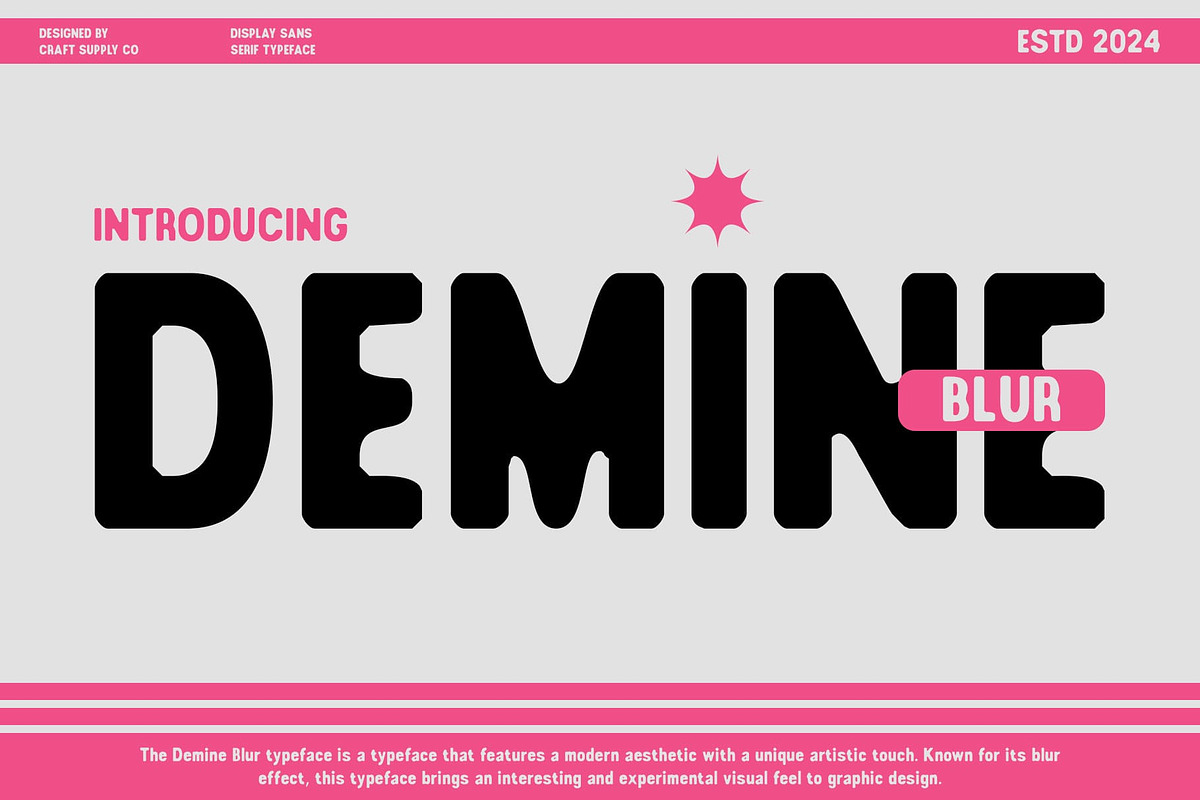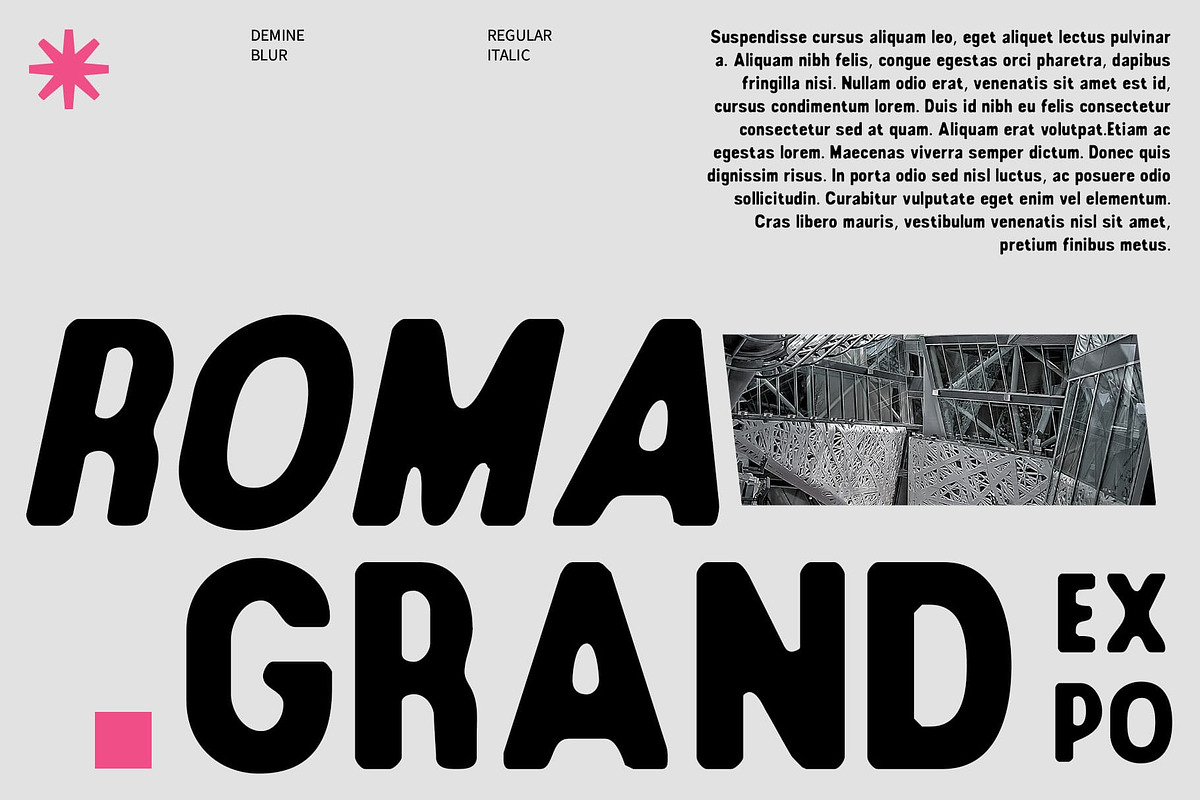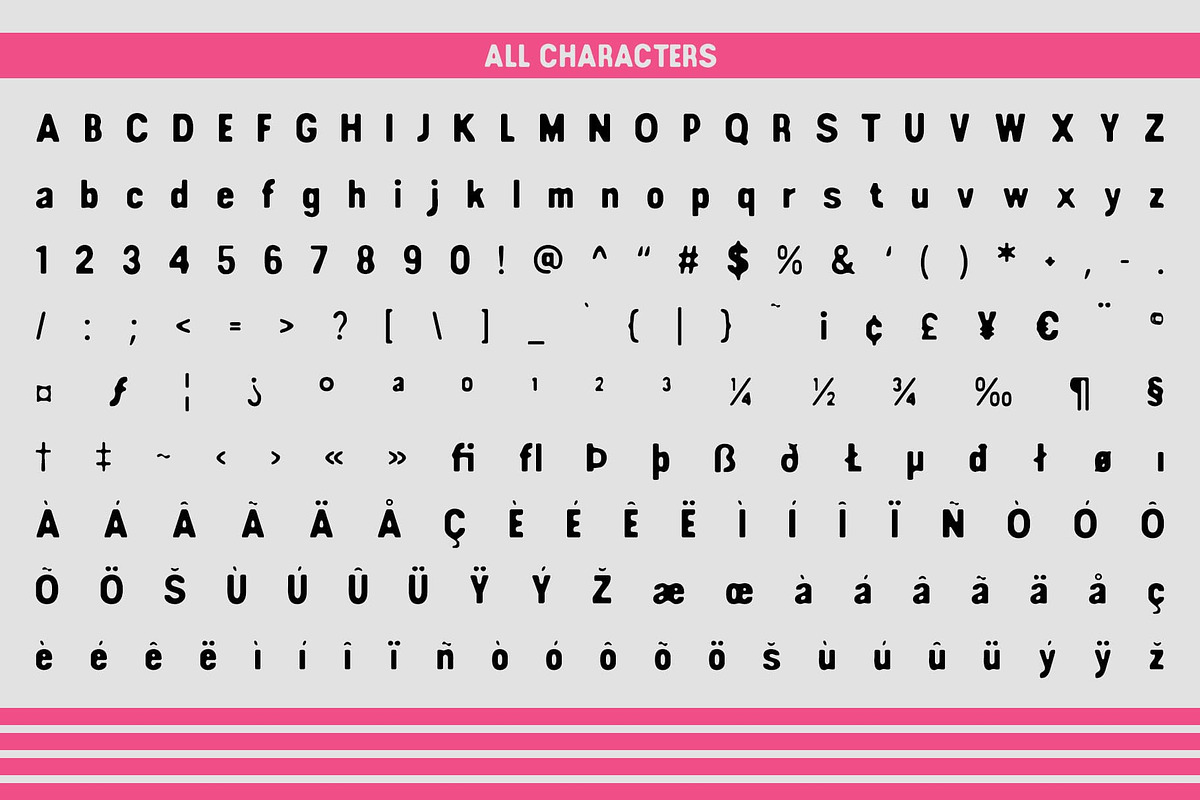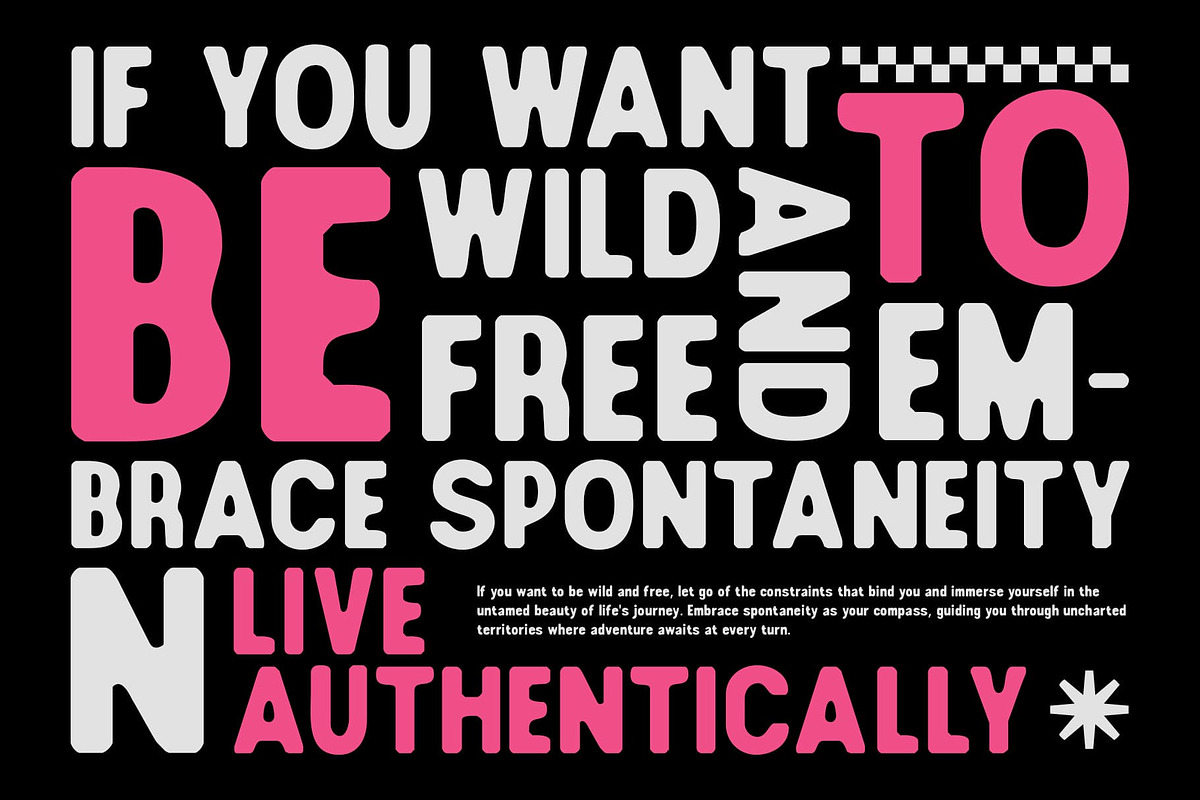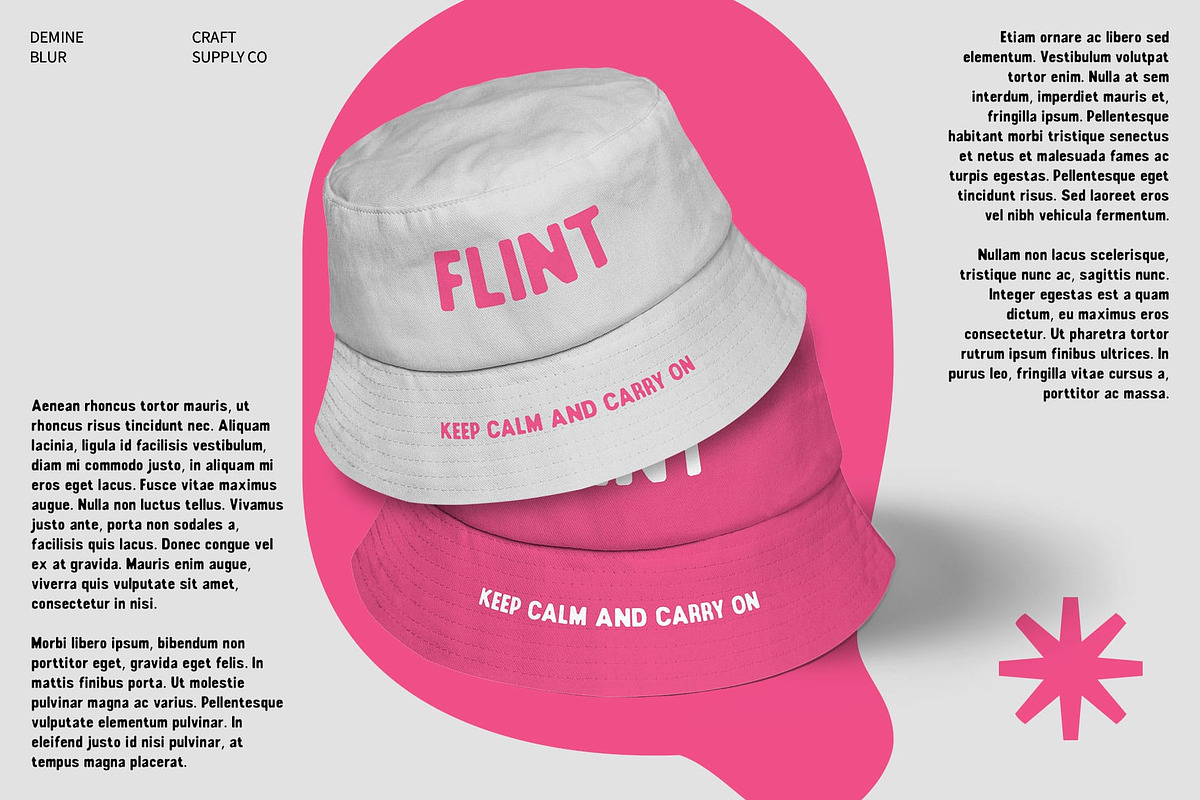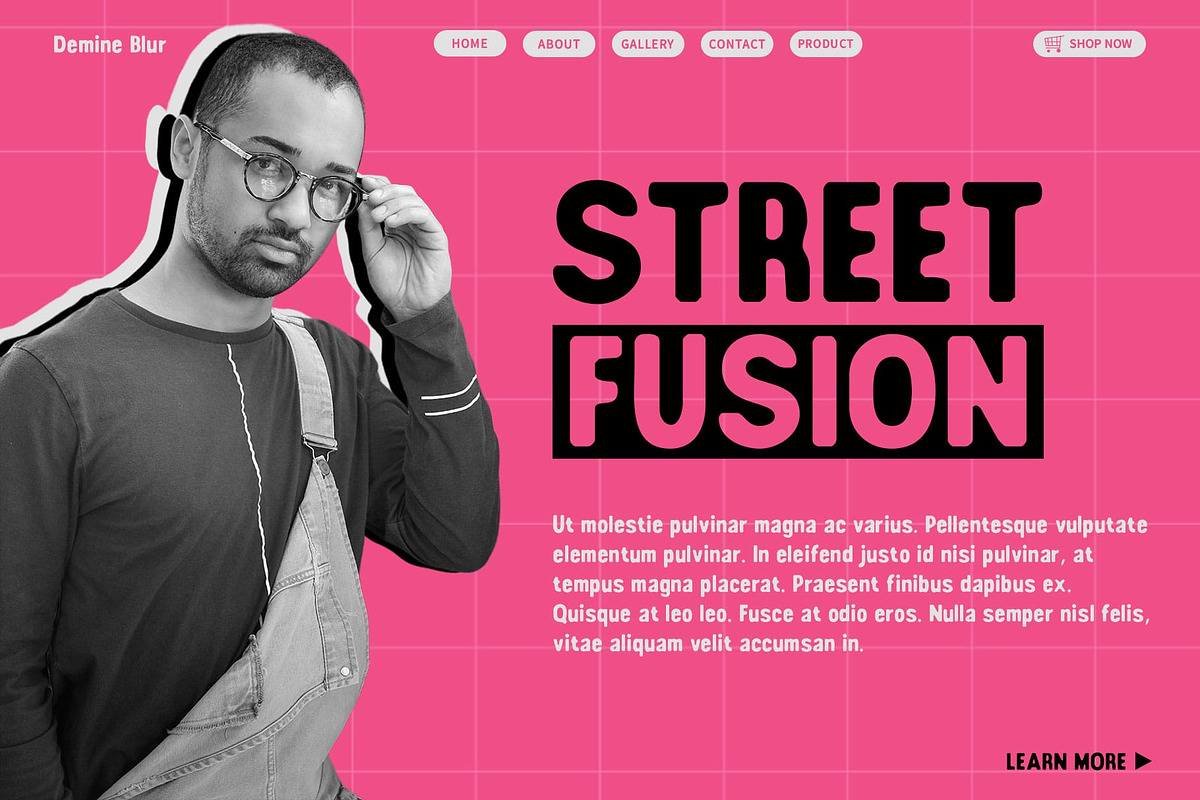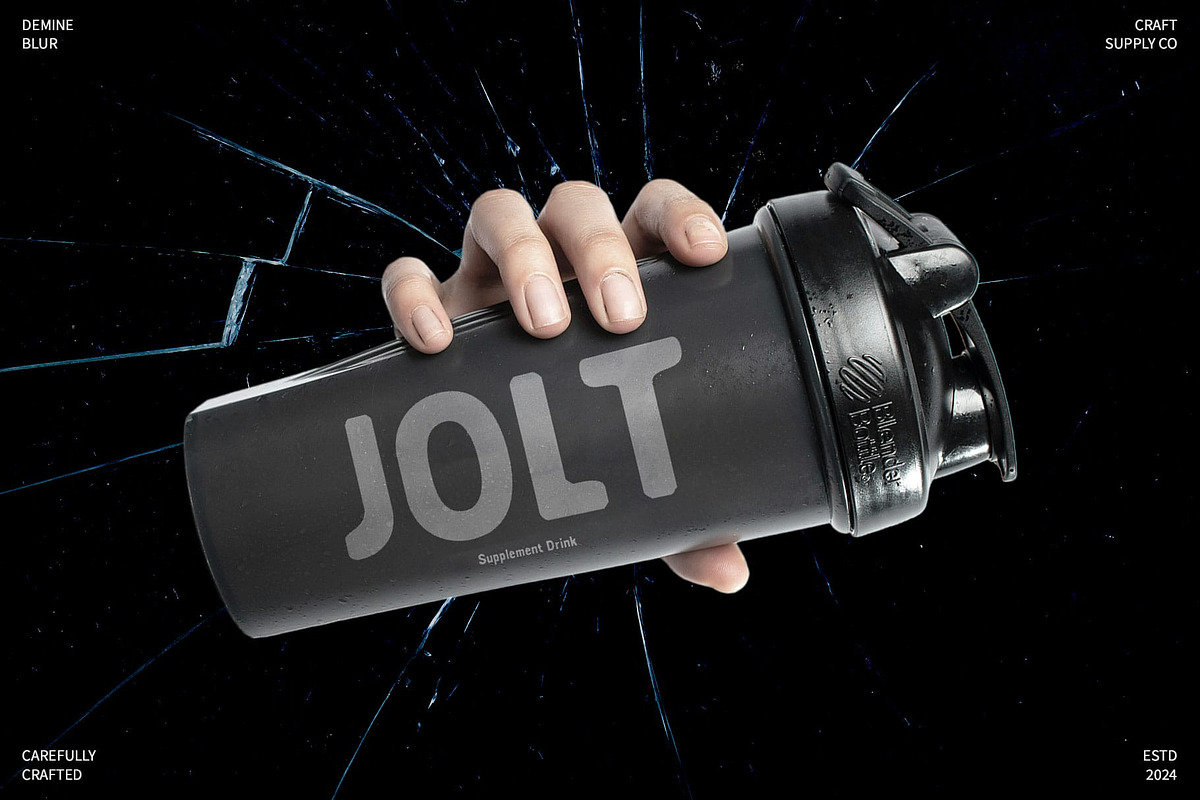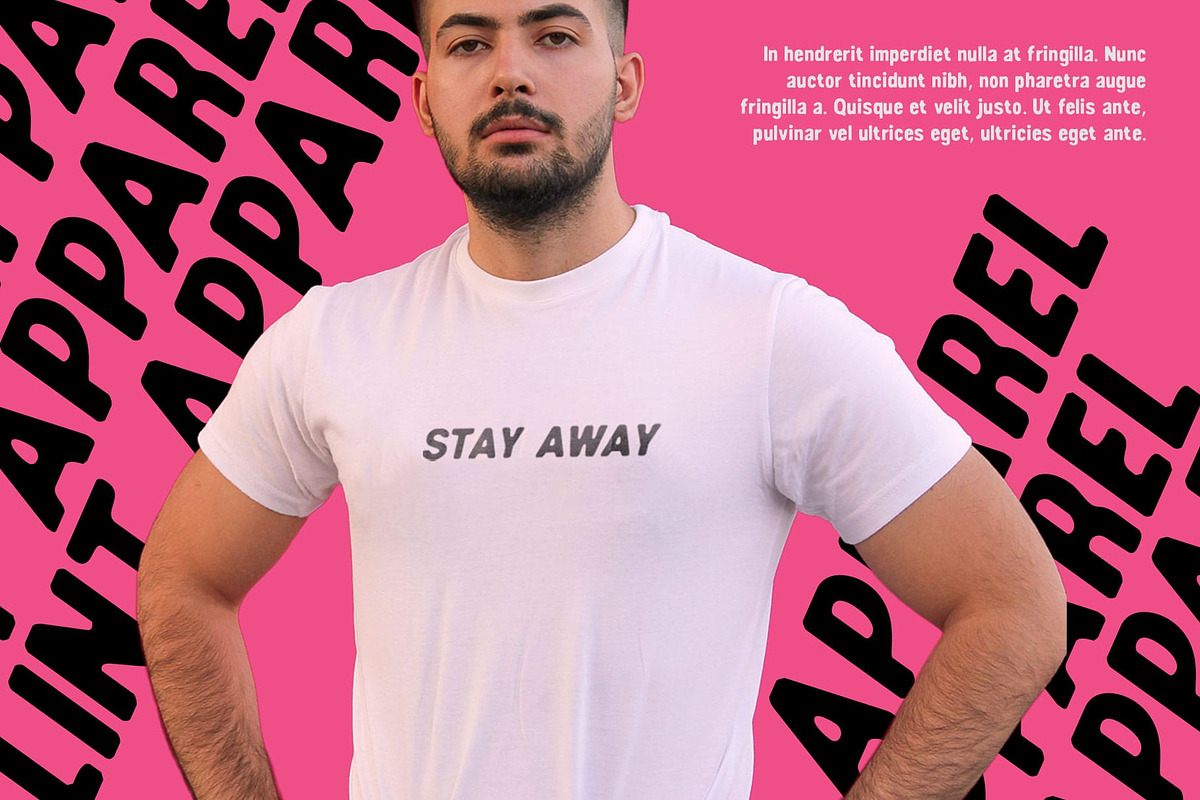
Demine Blur
Demine Blur: Bold Condensed Sans Serif Font with a Modern Twist
Striking Sans Serif with Blur Effect
Demine Blur is a bold, condensed sans serif font that delivers a striking and modern look, enhanced by a unique blur effect. Its compact and robust form ensures high readability and visual impact, making it an ideal choice for various design applications.
Compact and Robust Design
The condensed structure of Demine Blur maximizes space efficiency without compromising on legibility. This feature makes it perfect for posters, branding, web design, advertising, and event flyers, where clear communication and visual appeal are essential.
Artistic Touch
The blur effect in Demine Blur adds a unique artistic touch to its bold and robust design. This combination not only enhances the font’s visual interest but also ensures that your designs stand out with a distinctive and engaging appearance.
Versatile Application
From bold headlines to impactful branding elements, Demine Blur excels in enhancing designs across different mediums. Whether for digital or print applications, this font elevates your projects with its modern twist and dynamic presence.
Make a Bold Statement with Demine Blur
Choose Demine Blur to infuse your designs with a bold, condensed sans serif font that combines readability with a unique artistic flair. Perfect for projects where visual impact and modern aesthetics are paramount, Demine Blur ensures your message is delivered with clarity and style.